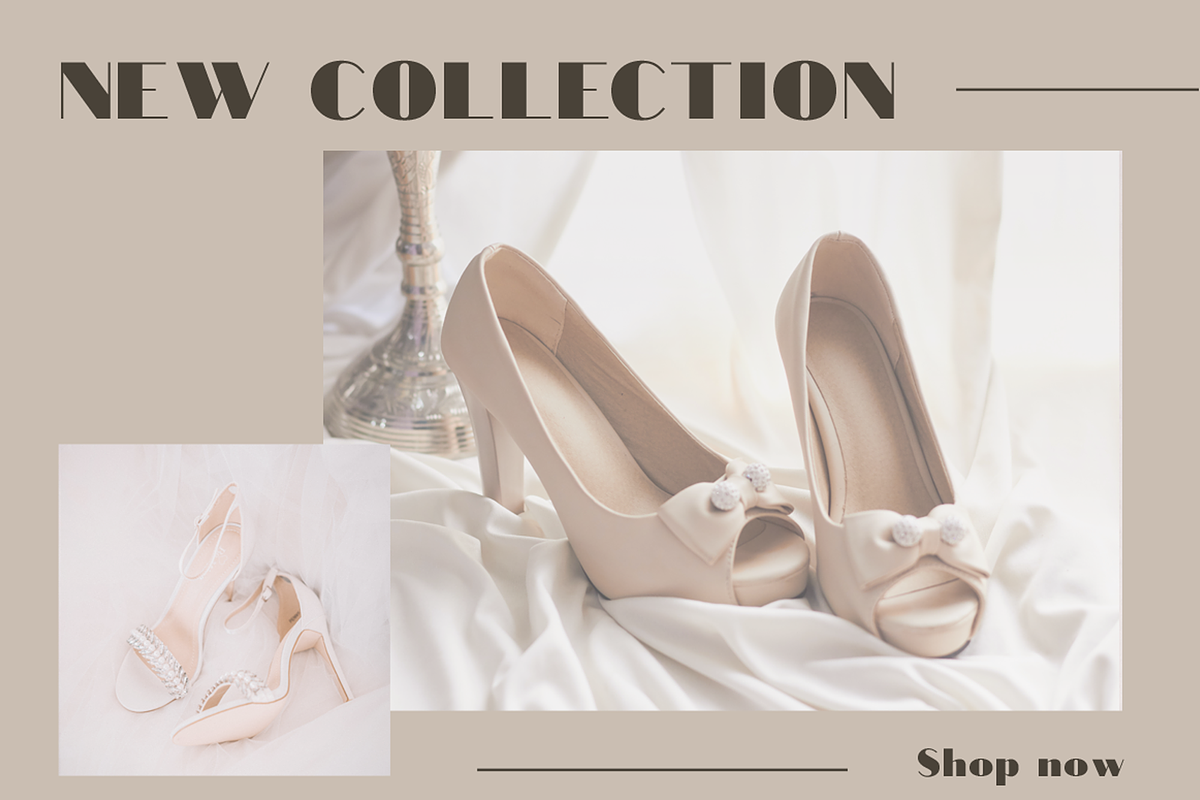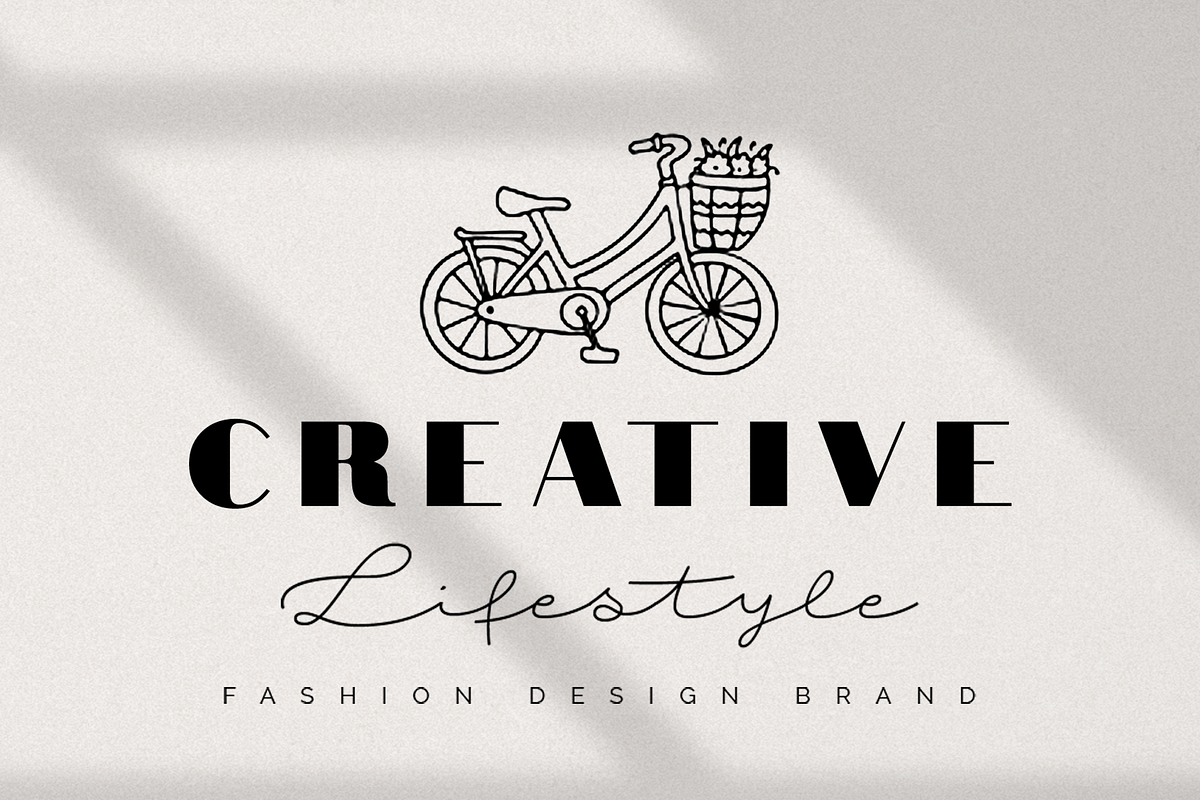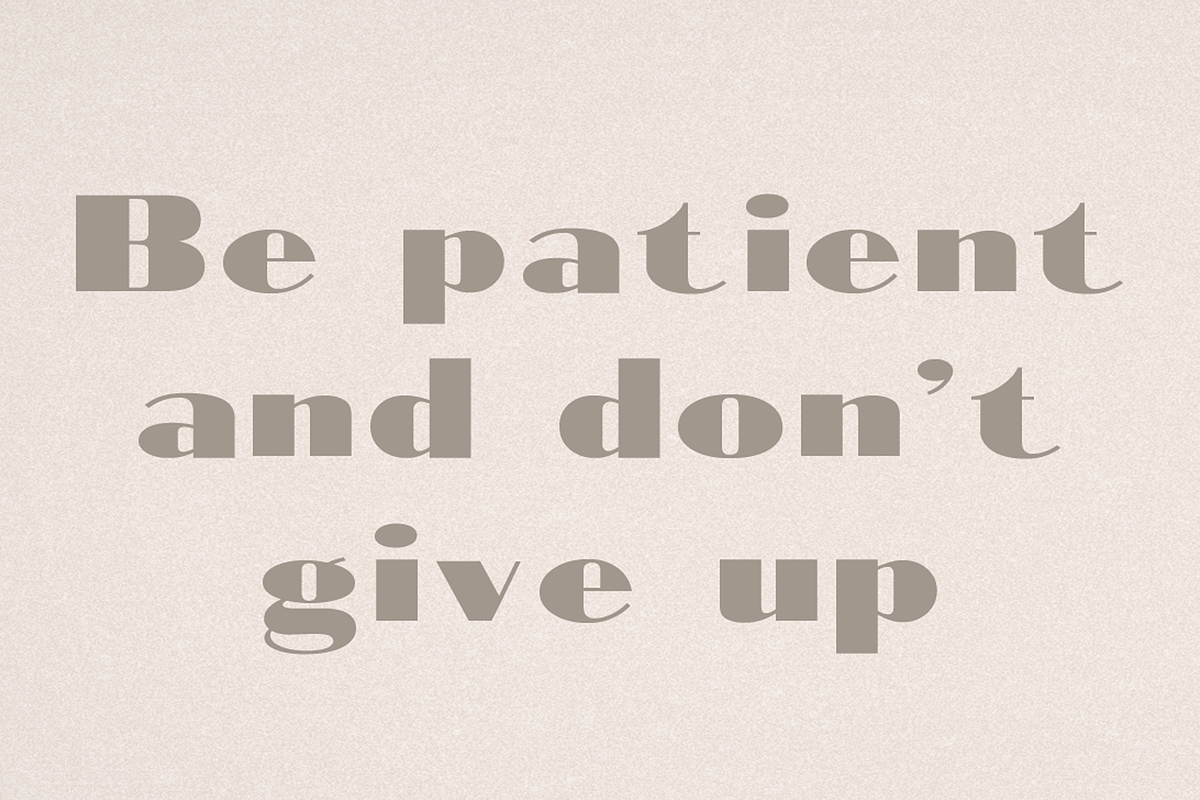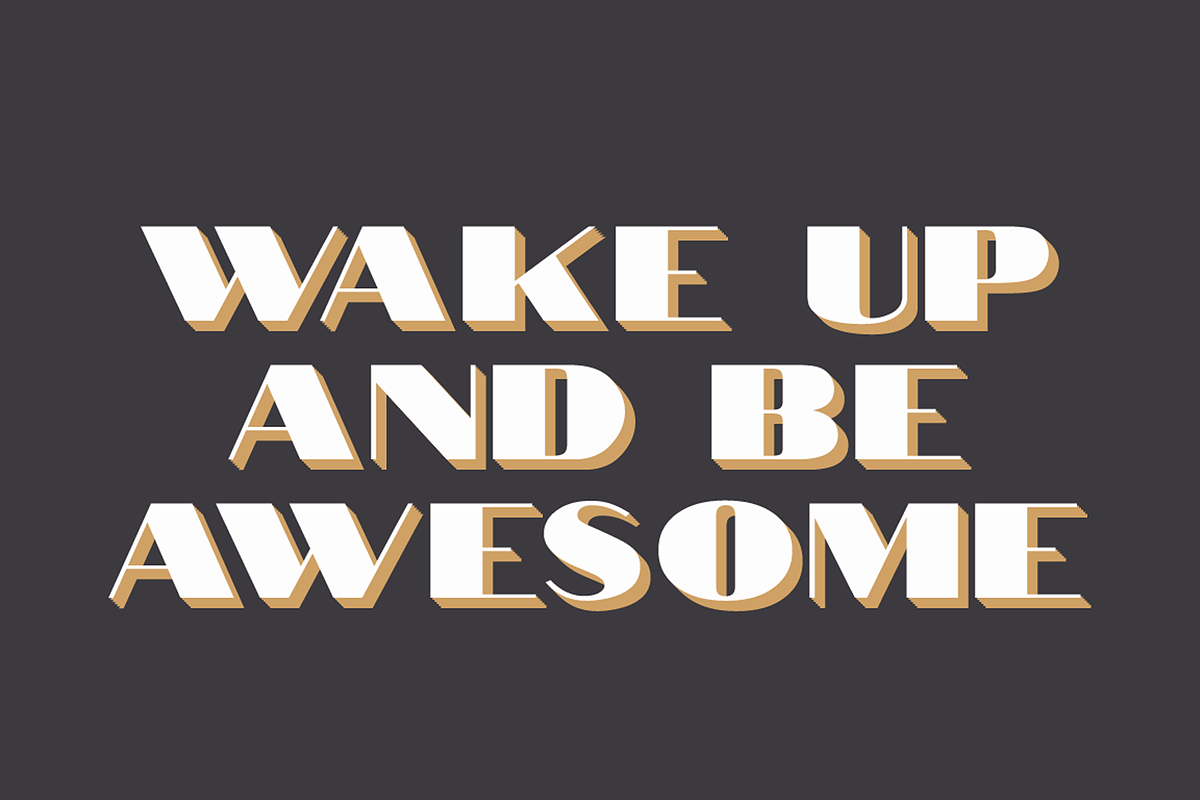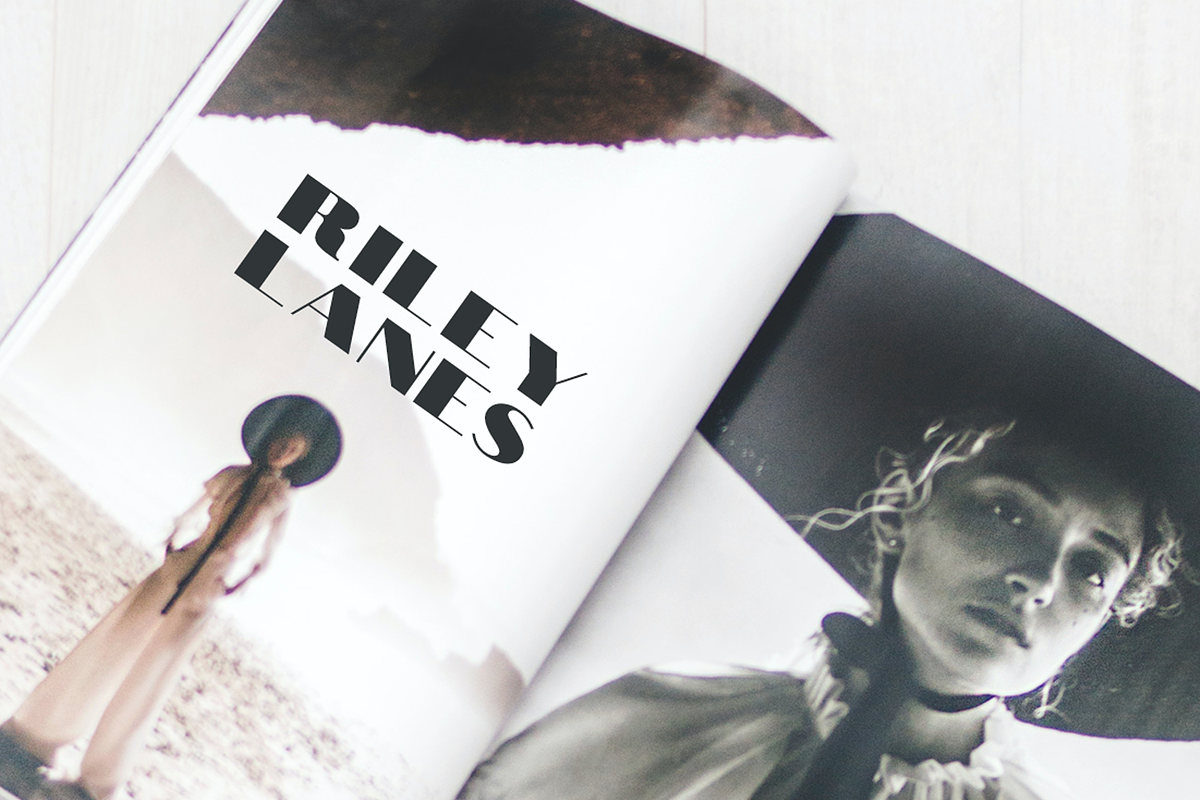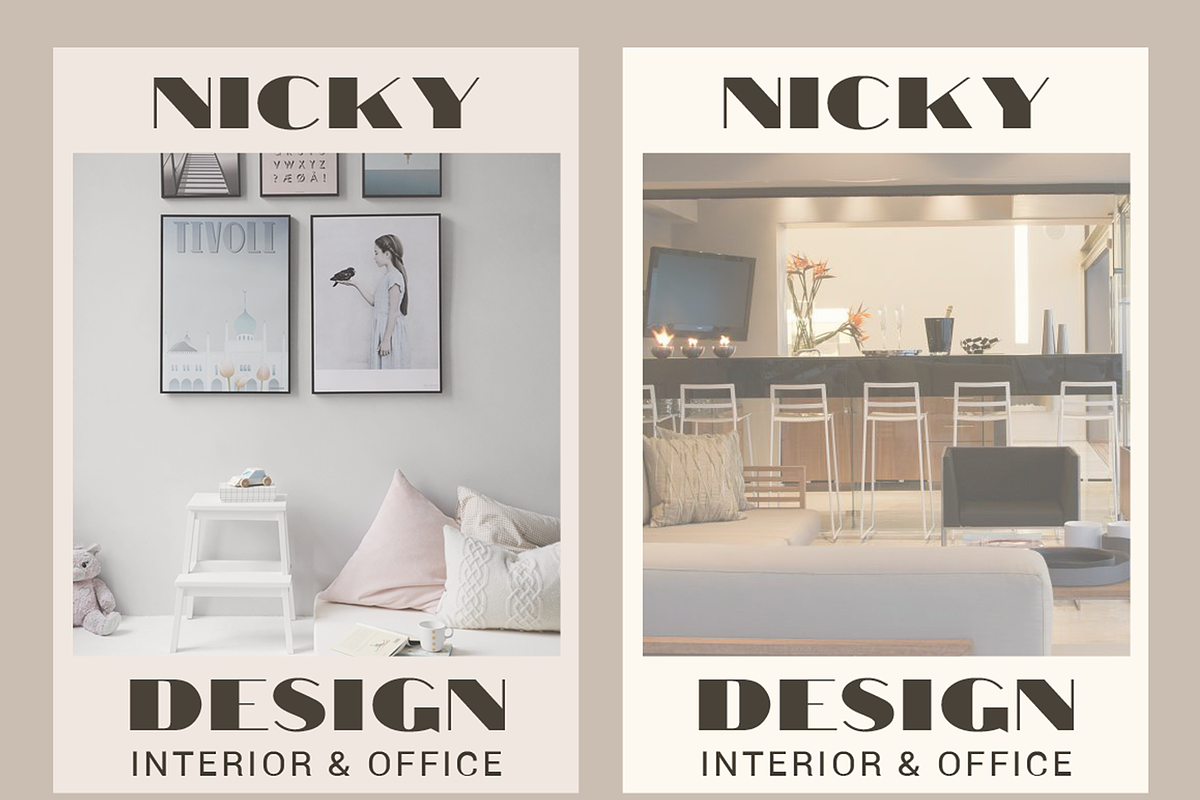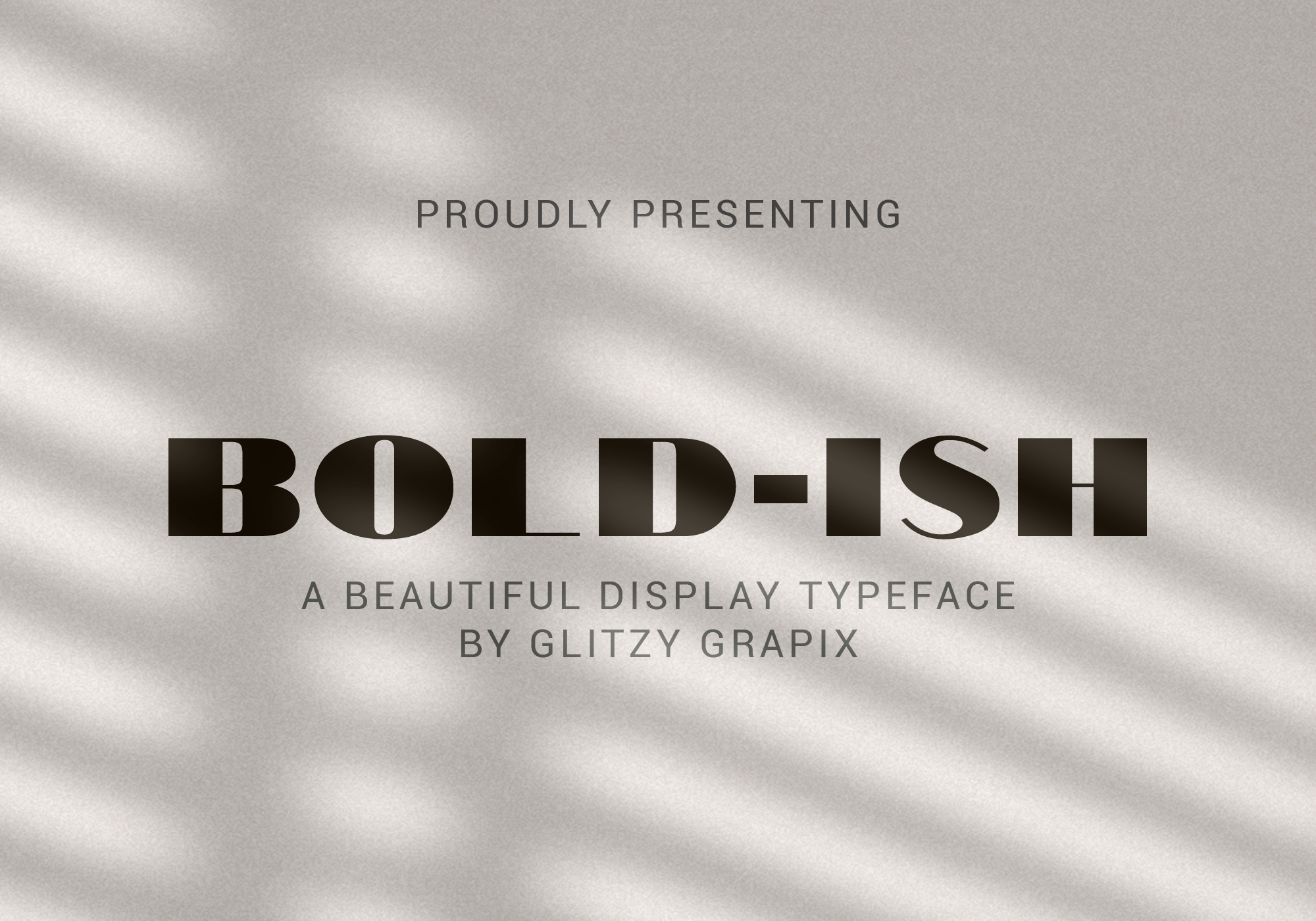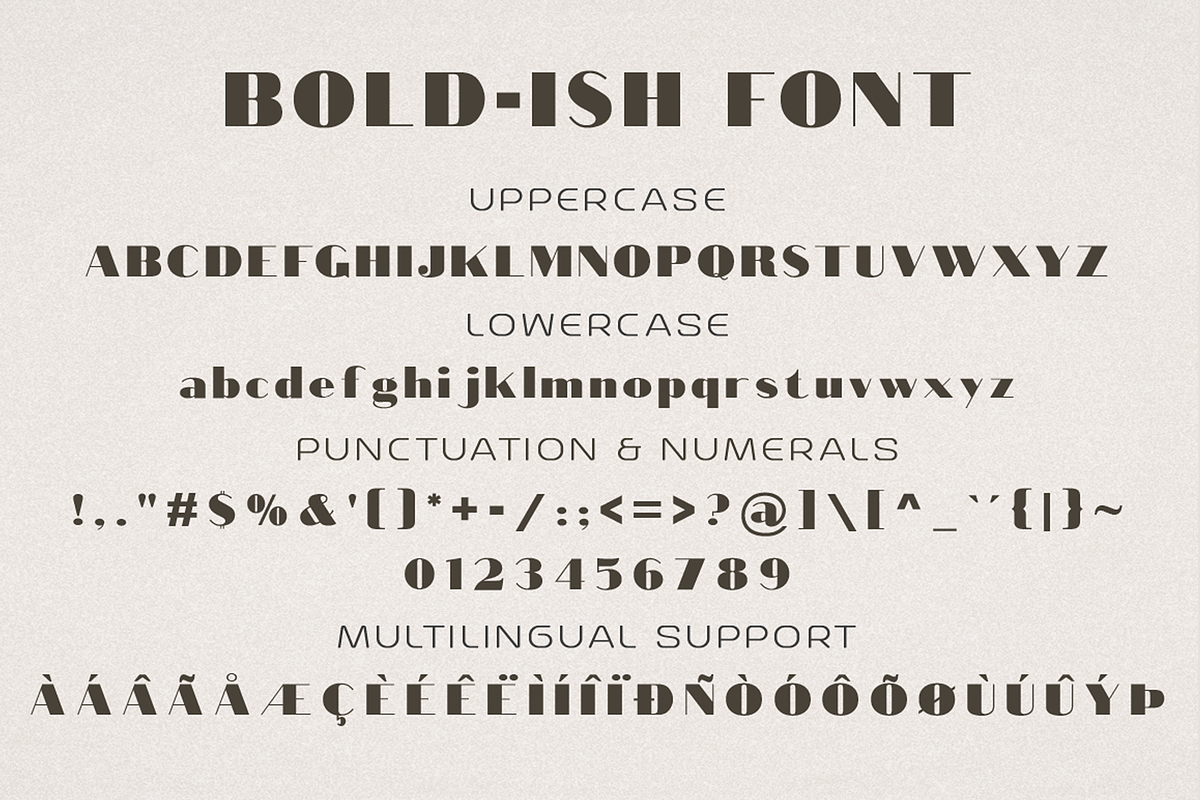
Bold-Ish Font - Display Typeface
Bold-ish is an elegant sans serif font. Its boldness, elegance and simplicity make this font look absolutely fabulous. Bold-ish is a display font made mainly for headlines and titles, but it can also be used for various purposes such as logos, advertising, t-shirts, letterhead, posters, signage, labels, badges and so much more. This font contains uppercase and lowercase letters, all punctuation and numerals.